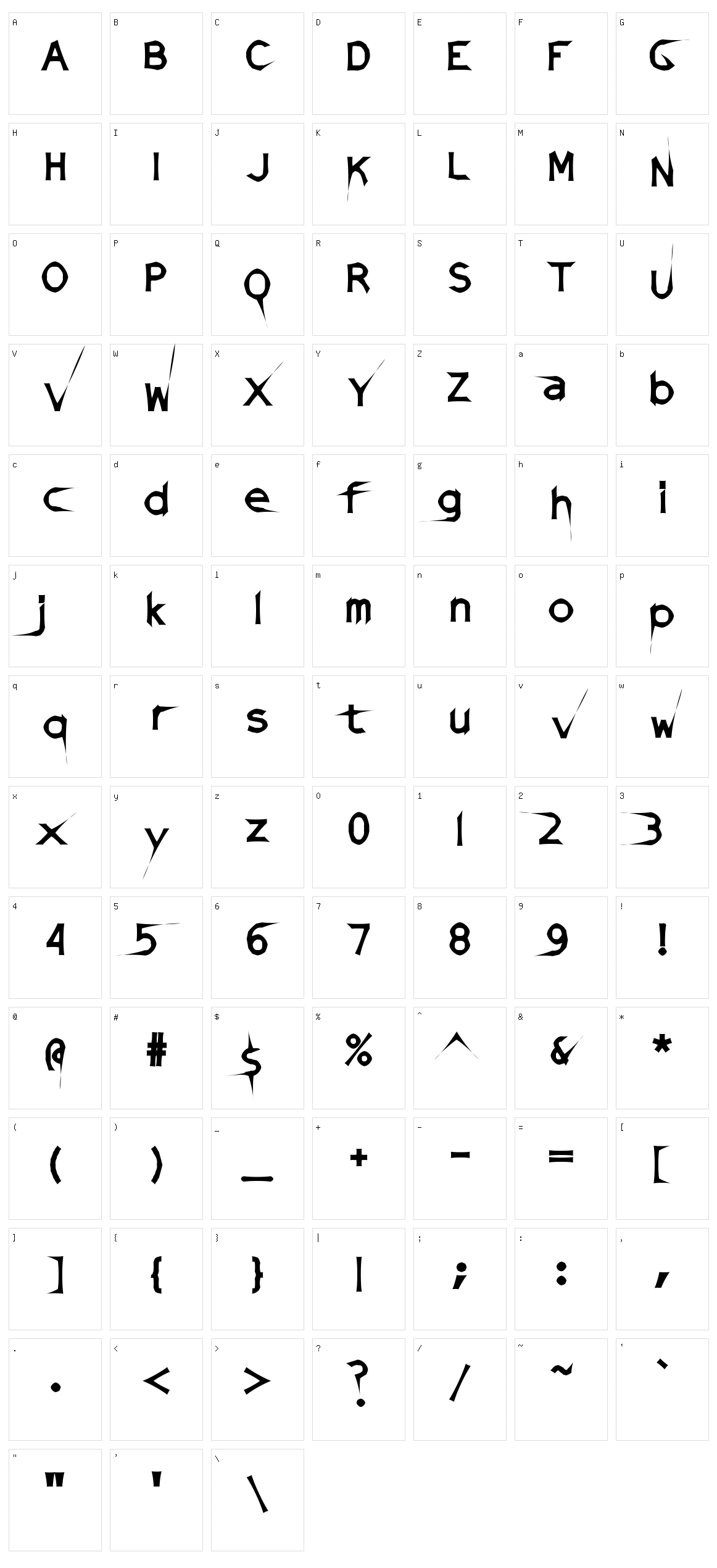
The free font Damaged Sata is carefully designed by Omega Font Labs, showcasing a thoughtful balance of creativity and usability and falls under the Horror font style. When you download the ZIP file, it contains only 27.65 KB of font files, making it lightweight and quick to download. Please review the license details below to understand permitted usage and distribution rights. If license information is not available, we recommend using this font for personal projects only or contacting the author directly for commercial usage permissions.